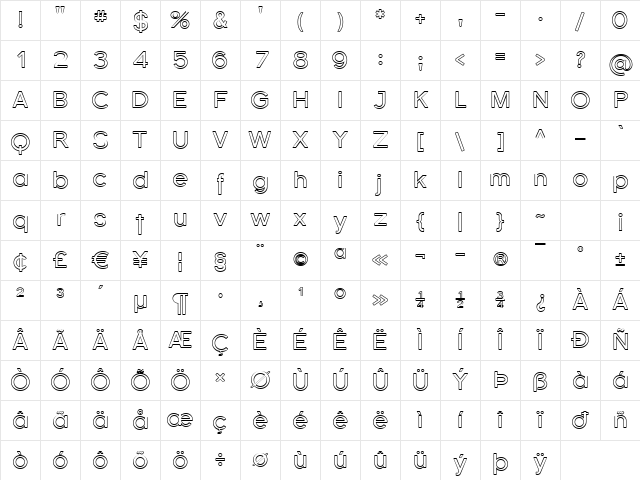
Florencesans Outline Regular
Florencesans Outline Family
Florencesans Outline Regular
Design Context for Florencesans Outline
Florencesans Outline is built around its visual character rather than neutral utility - its distinctive forms are designed to make an impression at display sizes.
Font Pairing: Pair with a clean neutral sans-serif for body copy to let Florencesans Outline's character lead without overwhelming the composition.
Pro Tip: Use Florencesans Outline exclusively at display sizes - it was designed to be seen, not read at length. Let a neutral companion handle body copy.